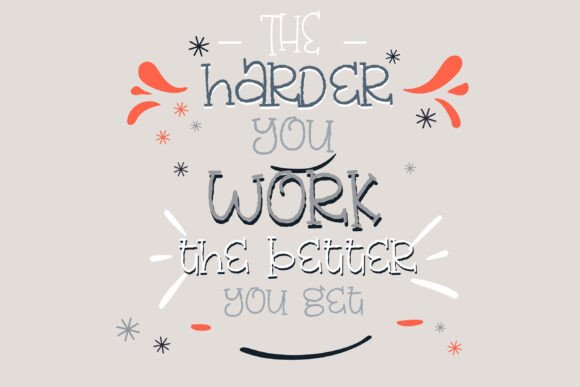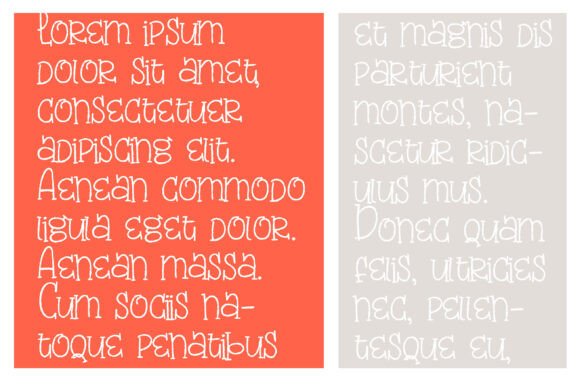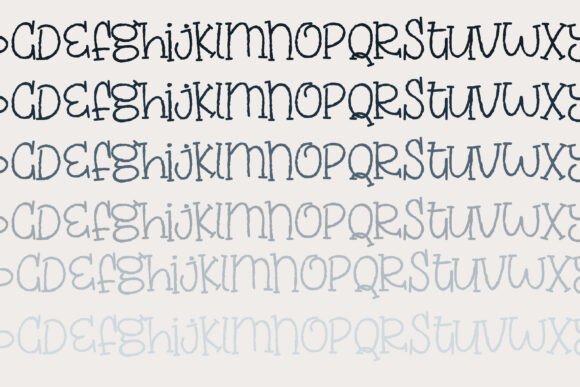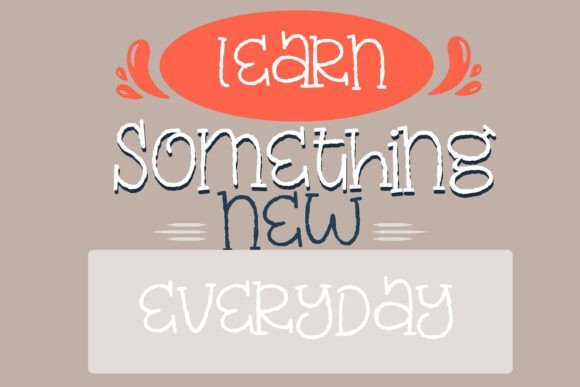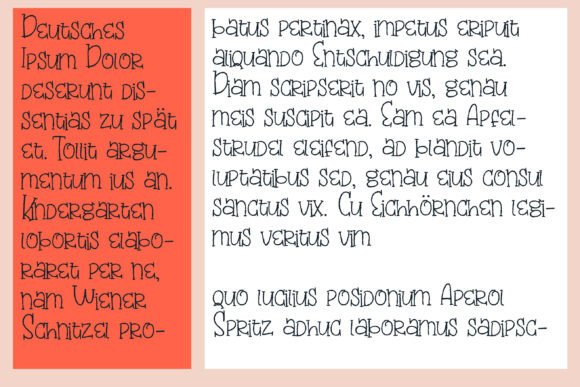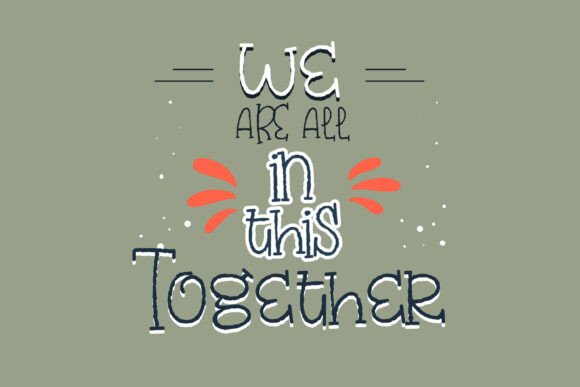
Introduction to Poppyhead Font
As a designer, you know that sometimes the perfect font can make all the difference in bringing your creative project to life. For me, it was a late-night brainstorming session, staring at a blank canvas, when I stumbled upon the enchanting Poppyhead Font. Its whimsical print with hand-crafted slab serifs immediately caught my attention, and I knew I had to learn more about this unique design resource.
What I discovered was a hand-crafted font that’s not only visually stunning but also incredibly versatile. The Poppyhead Font can be used for a wide range of applications, from invitations and greeting cards to digital projects that require a touch of personality. With its transparent background, it’s the perfect choice for designers who want to add a high-quality, custom touch to their work.
Key Features of Poppyhead Font
- Features a unique, hand-drawn design with a transparent background, allowing for seamless integration with various backgrounds.
- Comes in a single weight, making it easy to use in a variety of design contexts, from logos to typography-based art.
- Designed to be highly legible, even at small font sizes, making it suitable for a range of creative projects, from posters to business cards.
Honest Review: Poppyhead Font
One thing that stands out about the Poppyhead Font is its high quality. The font is well-designed, with clear lines and a clean aesthetic. The transparent background option also adds a nice touch, allowing for seamless integration with various design elements.
- Well-suited for creative projects
- Limited character set
Overall, I’m impressed with the Poppyhead Font. While it may not be perfect, it’s a great resource for designers working on smaller projects or looking for a free font option. With its high quality and transparent background, it’s definitely worth considering for your next creative project.
The Poppyhead Font is ideal for various creative projects, including social media graphics, presentations, and documents. You can use this font to create eye-catching headings, titles, and design elements that add visual interest to your designs.